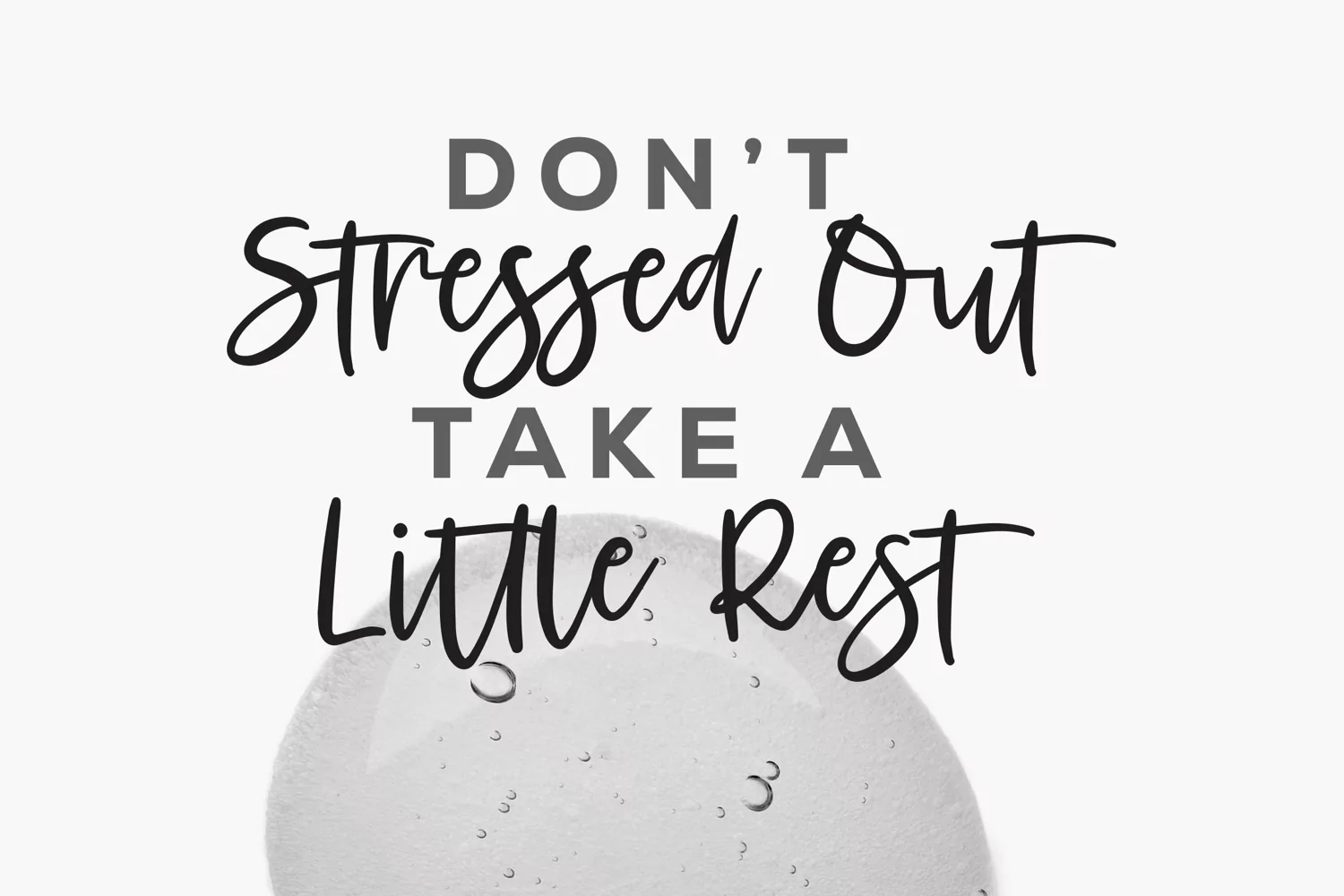
Feeling Well - Handlettering Font Font that contain lowercase, uppercase, symbol, and also support multi language. There’s a lot ligatures in this font. This Font also comes with ligatures, alternates and many more. this font suitable for fashion, branding, catalog and other design what you want.
Feeling Well